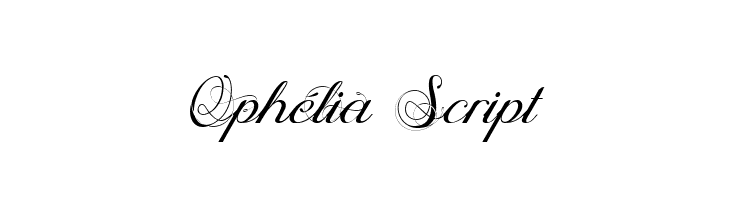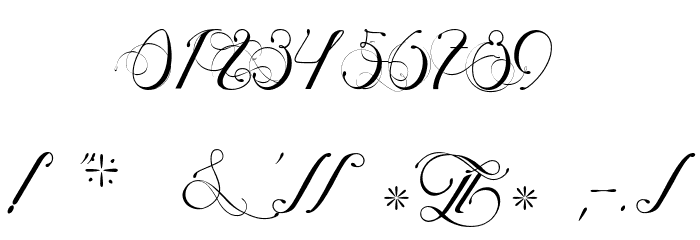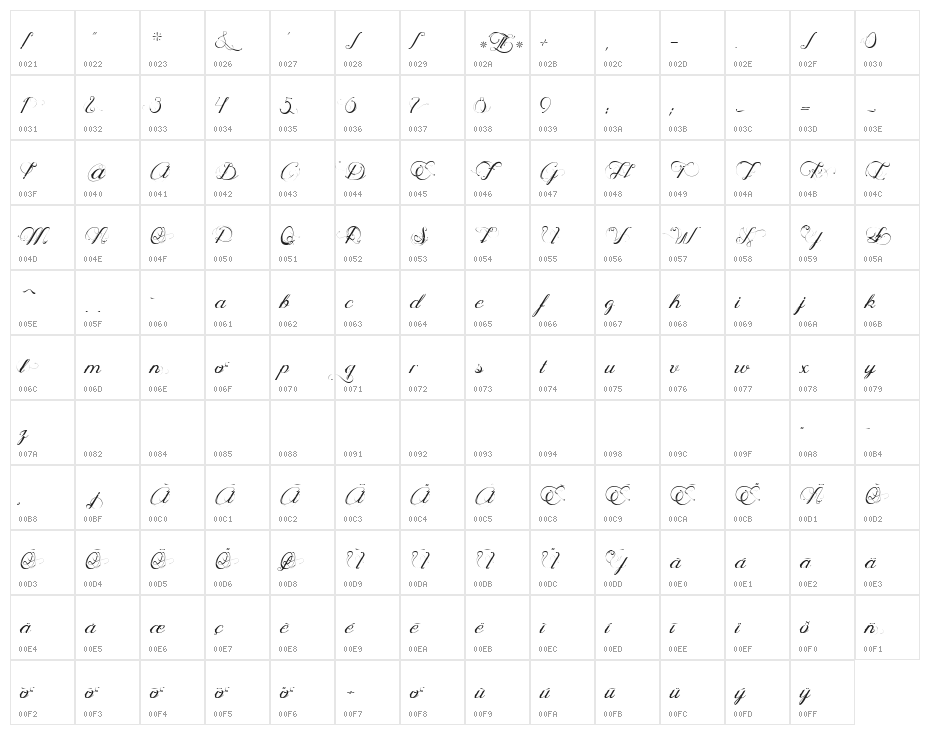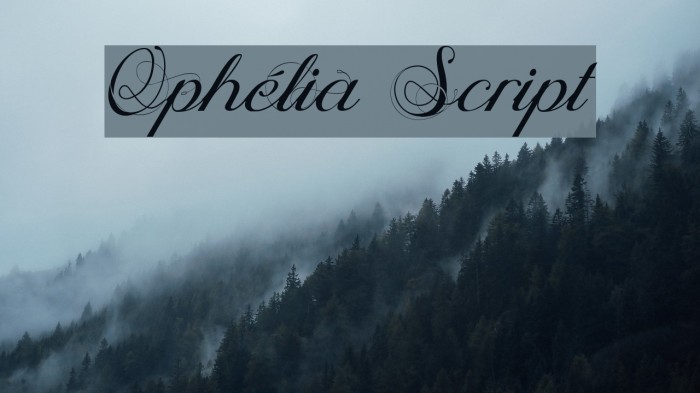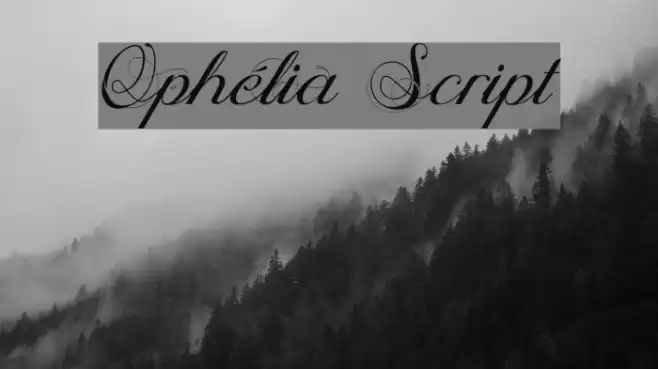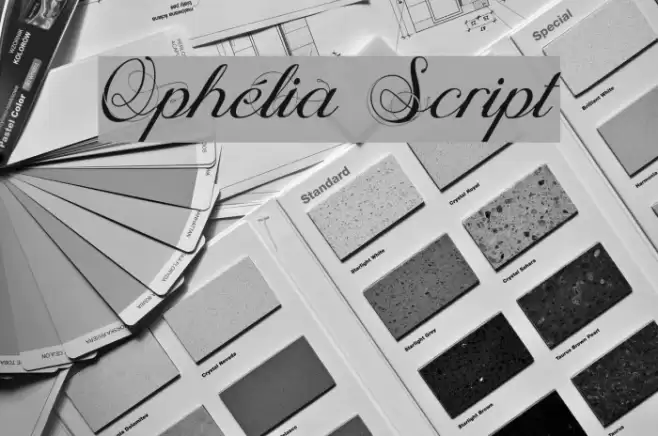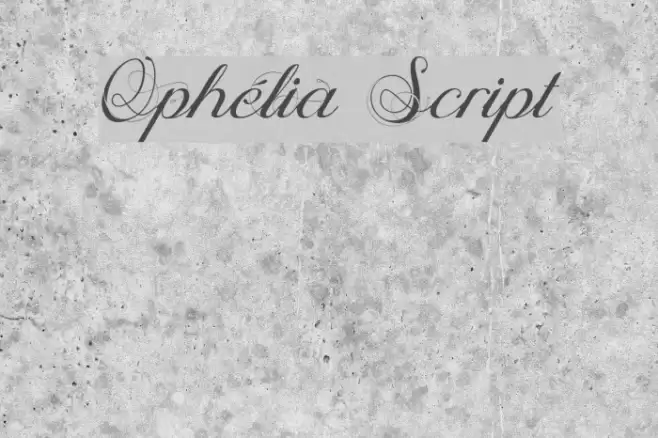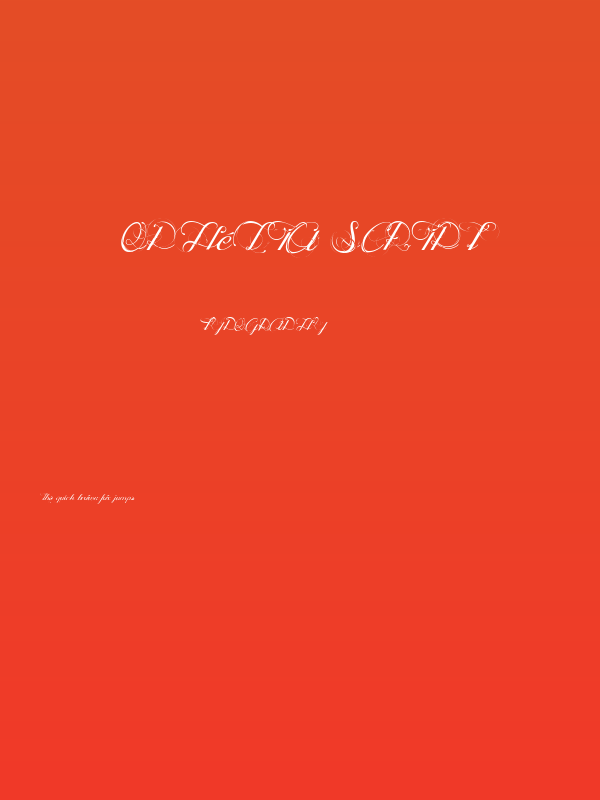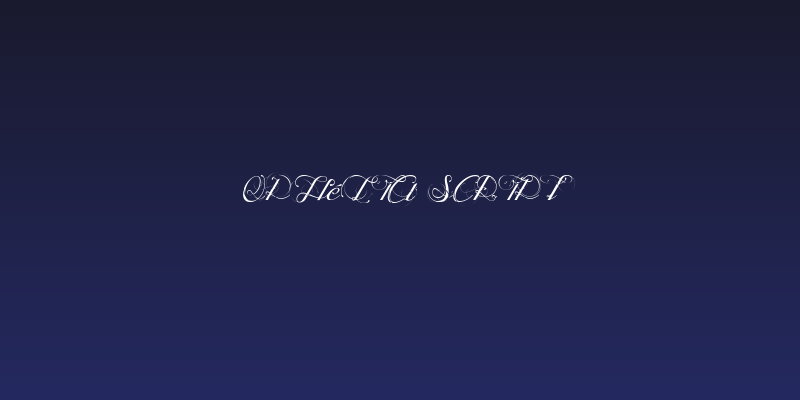
Ophélia Script Font
Ophélia Script Description
This elegant script font is characterized by its intricate and flowing letterforms, featuring elaborate swashes and flourishes that give it a sophisticated and decorative appearance. The uppercase letters are particularly ornate, with extended loops and curves that create a sense of movement and grace. The lowercase letters maintain a more restrained elegance, balancing the overall design. The numerals and special characters are equally detailed, ensuring consistency throughout the font. This font is ideal for projects that require a touch of luxury and refinement.
| Proposed Projects | Wedding invitations, luxury branding, elegant stationery, and decorative headlines. |